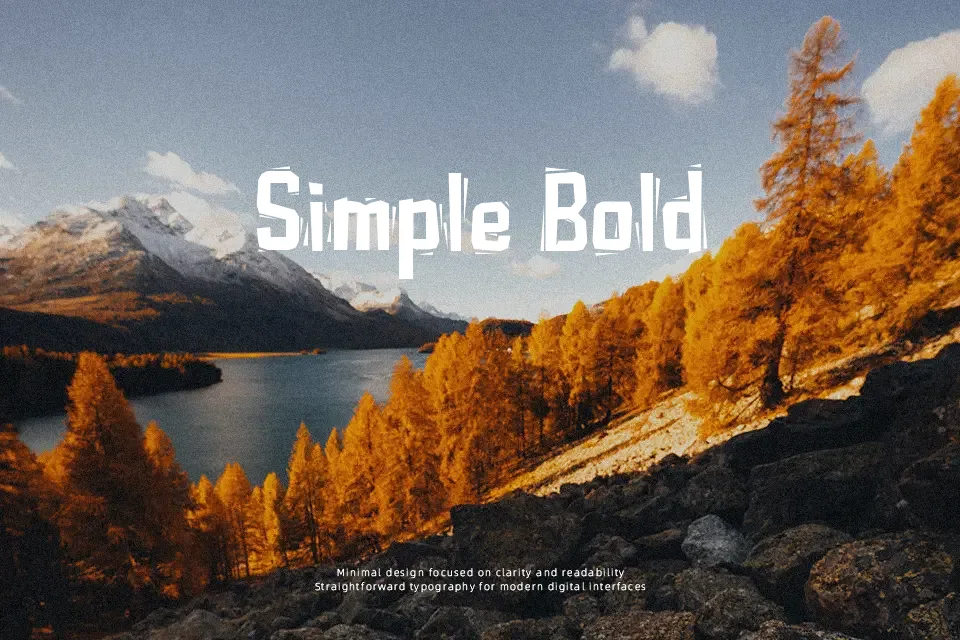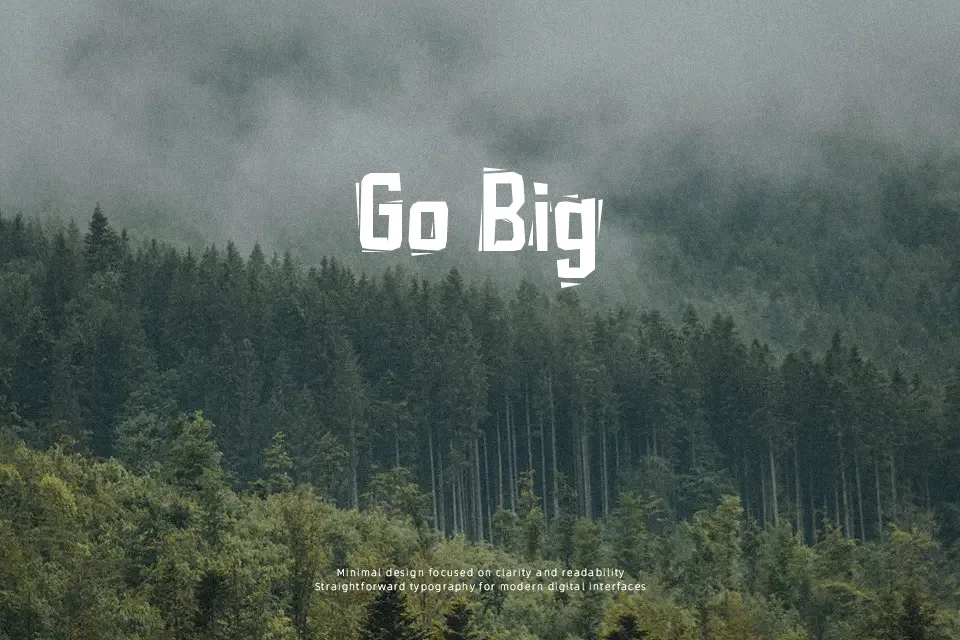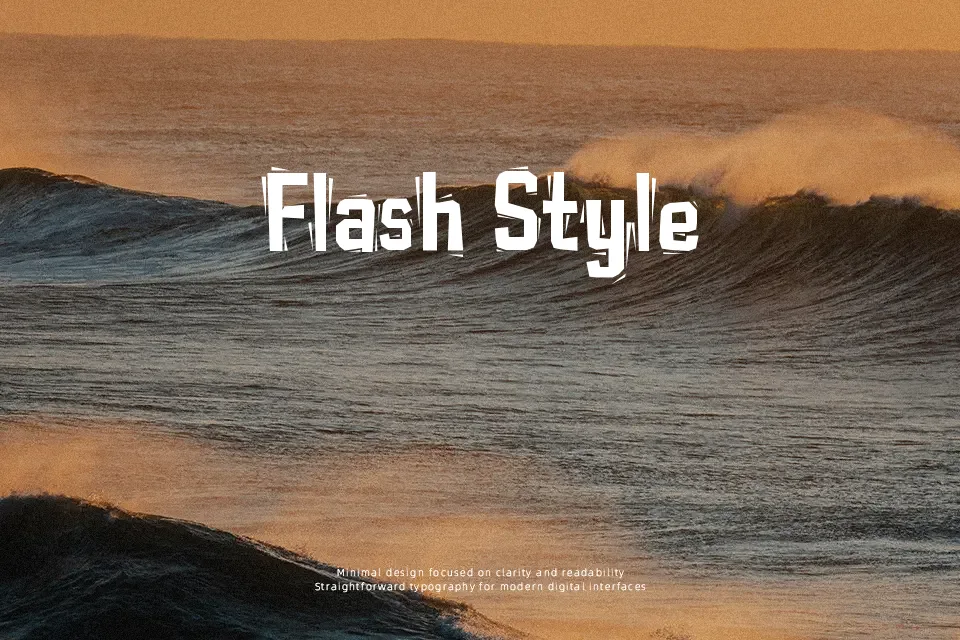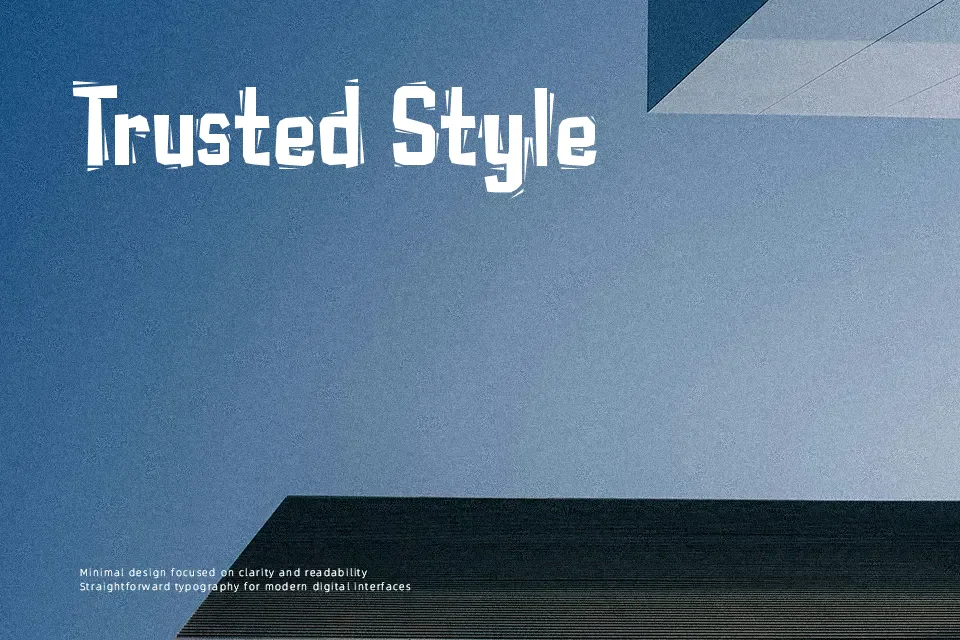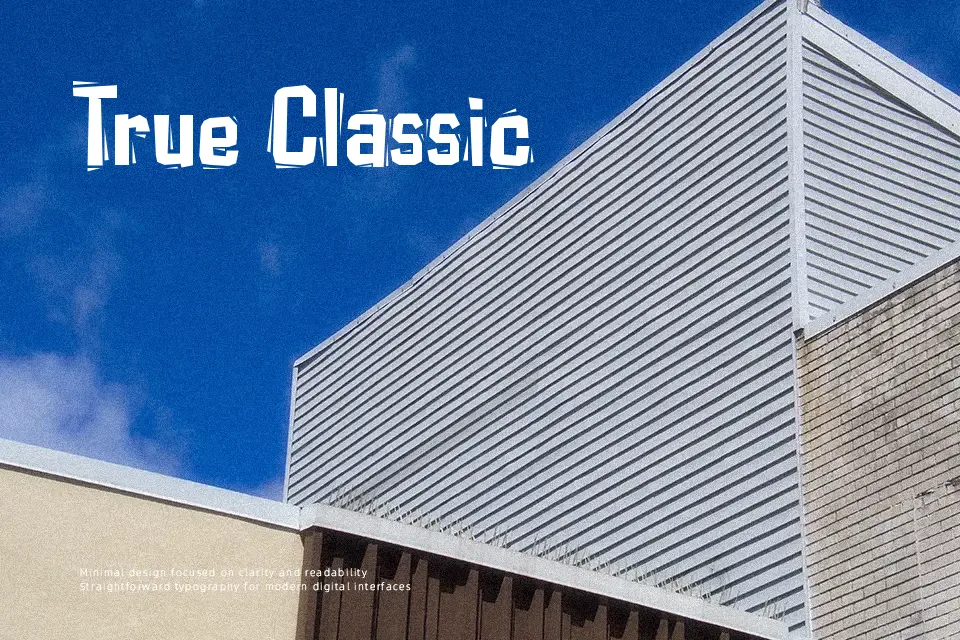
Typo Cut-Out Shaky Font
Typo Cut-Out Shaky Font performs best when deployed in commanding display roles where its irregular outlines can command visual attention. The letterforms showcase uneven sheared contours, heavy solid strokes, and abrupt geometric angles that recall scissor-cut collage artwork. Moderate tracking separates the deliberate asymmetry of adjacent glyphs, preserving structural definition across tight banner lines and punchy headline treatments. Capitals exhibit diverse widths with off-center crossbars, establishing a restless, kinetic cadence across the baseline. While the design thrives across festival flyers, children’s publication covers, and game branding, dense paragraph settings become illegible due to the abrasive edges and intense decorative rhythm.
Best For: comic book cover lettering, animated video title cards, arcade game graphics, kids party promotional posters
Not Ideal For: continuous editorial body text, corporate annual reports, mobile app navigation labels, dense financial spreadsheets
Perfect for gaming, headline, and kids, with a bold and comic style.